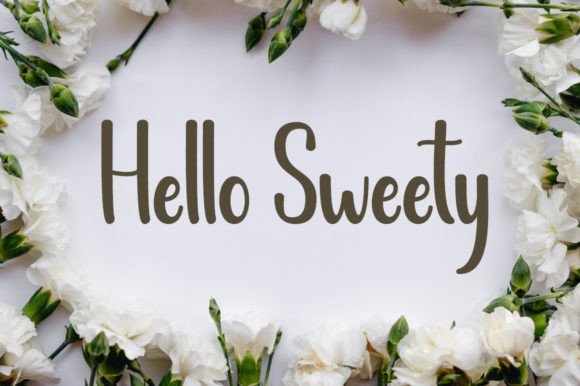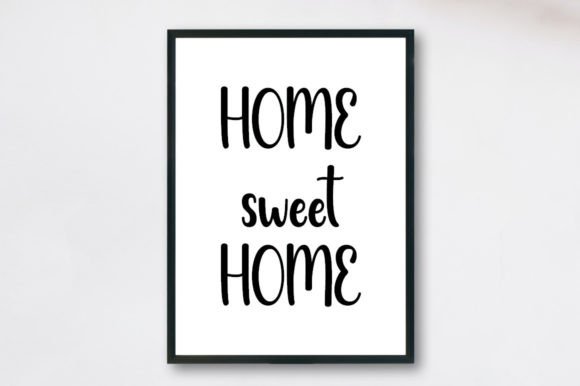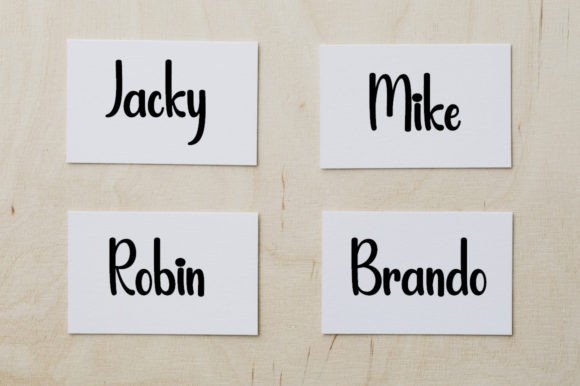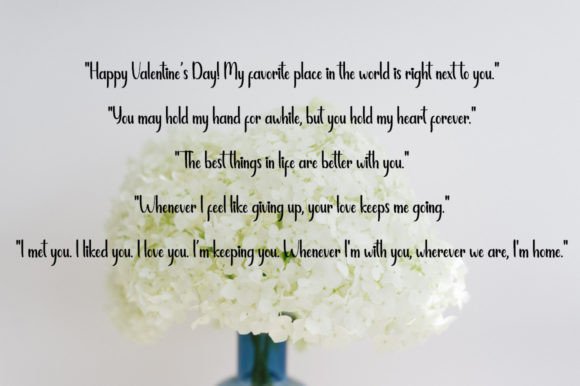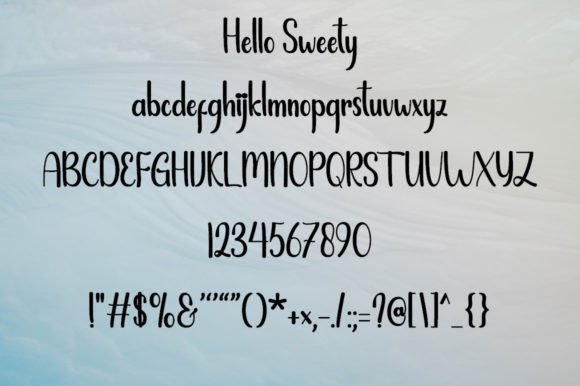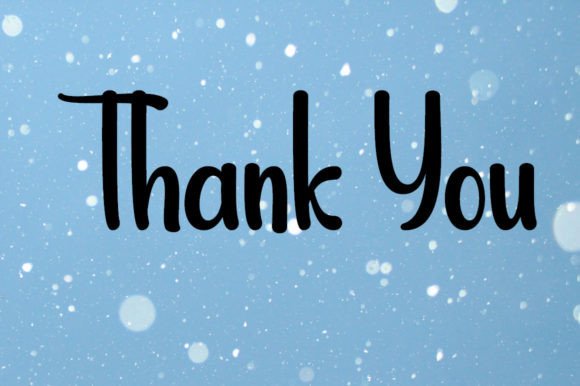
Hello Sweety Font
What Is Hello Sweety Font?
Hello Sweety Font is a fun and quirky handwritten script designed to bring joy and personality to your designs. Each letter has a smooth, playful shape that feels approachable and fresh. Because of its simple yet charming style, this font is ideal for projects that need a warm and cheerful feel.
You will see how easily Hello Sweety can brighten any creative idea, big or small.
Hello Sweety is a versatile font you can use in countless ways. For example, it’s perfect for crafting projects, handmade labels, and DIY designs. Its quirky character makes everything feel personal and unique.
In addition, it’s great for digital designs and social media content. If you want your posts to look cute and engaging, Hello Sweety helps you create a consistent and friendly style.
You can also use it in presentations for school, business, or creative projects. The clear letterforms keep your slides easy to read while adding a touch of personality.
When you design greeting cards or invitations, Hello Sweety makes every word feel thoughtful and sweet. Even simple messages look special with this playful script.
Moreover, it works wonderfully for posters, product packaging, stickers, and more. Your designs will look polished, cohesive, and full of life.
Why Should You Choose Hello Sweety Font?
There are many reasons to pick Hello Sweety for your next project. First, it’s very easy to read at any size. Whether you use it for titles or small captions, every letter stays clear and smooth.
Also, it pairs nicely with clean sans-serif fonts, so you can build balanced layouts that feel modern and professional.
Designers love that it looks polished right out of the box, saving time and ensuring beautiful results.
Hello Sweety Font adds warmth and friendliness to every project. For example, when you want your work to feel welcoming and playful, this font makes it easy.
Even minimalist layouts look more engaging with Hello Sweety’s lively strokes. Whether you create branding, packaging, or social media graphics, your work will stand out.
Using a premium handwritten font also shows your attention to detail and your commitment to quality. This builds trust with your audience and makes your designs more memorable.
Hello Sweety Font is more than just a typeface—it’s a creative tool that helps you share ideas with clarity and joy. From crafts and invitations to logos and social media posts, this font adapts easily and leaves a lasting impression.